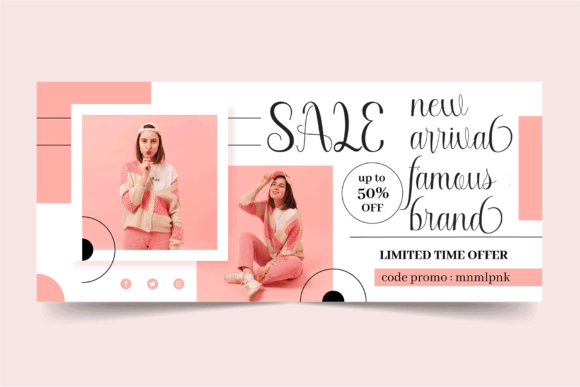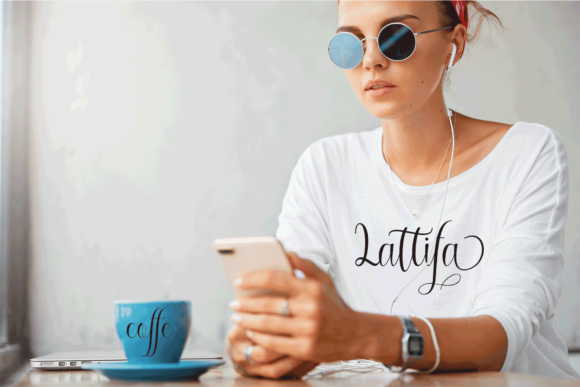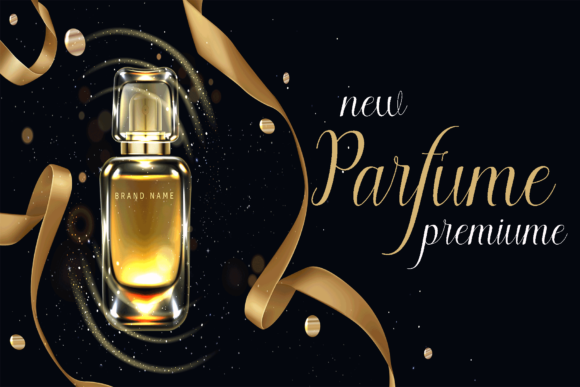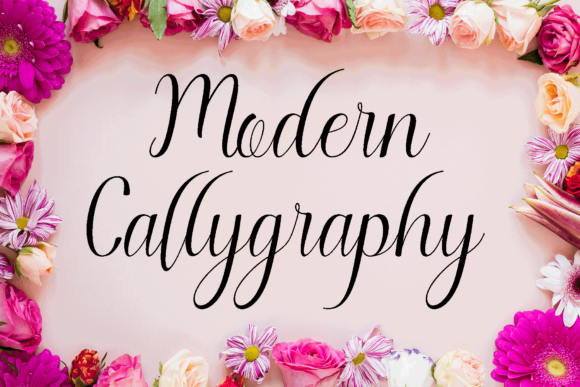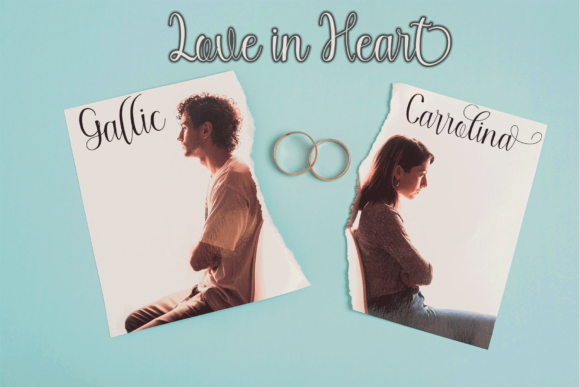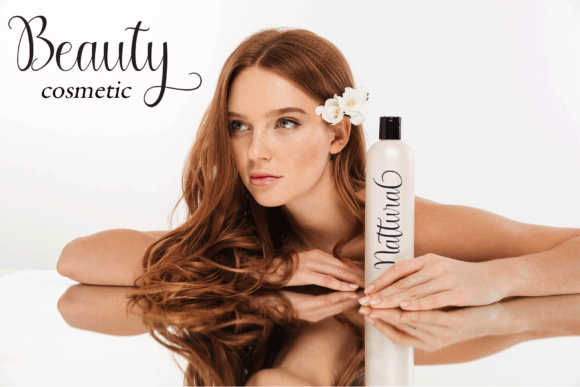
Adding Whimsy to Your Designs: The Magic of Butterflay Font
There’s something special about creating something from scratch – the spark of an idea, the rush of inspiration, and the satisfaction of bringing it to life. For designers, this moment is what makes it all worth it. But, let’s be honest, sometimes our ideas need a little push to take them to the next level. That’s where the perfect font comes in – one that can elevate your design and make it truly unforgettable.
Enter the Butterflay Font, a delicate, elegant, and flowing handwritten font that’s sure to add a touch of whimsy to your designs. With its beautiful and well-balanced characters, this font is a valuable addition to any designer’s toolkit, capable of matching a wide range of styles and ideas.
Butterfly Font Key Features
- Font Family: Butterfly Font is a unique, hand-drawn script font designed to evoke a sense of elegance and sophistication.
- Unique Characteristics: Butterfly Font features a distinctive, flowing design with intricate details and subtle flair, making it ideal for creating eye-catching headlines and titles.
Butterflay Font Review
Overall, I think Butterflay Font is a beautiful, whimsical font that can add a touch of magic to your design projects. ✨ Here are some things that work well:
- Unique, hand-drawn feel that’s perfect for creative and artistic projects.
- Lots of character and personality, making it a great choice for brands that want to stand out.
- Good legibility, even at smaller font sizes.
- Includes a wide range of languages and glyphs, making it a versatile choice for international projects.
- May not be the best choice for formal or professional projects, due to its whimsical nature.
- Can be quite dense, which may make it difficult to read at very large font sizes.
- Lack of italic or bold styles, which may limit its use in certain design situations.
Overall, I think Butterflay Font is a great choice for designers who want to add a touch of creativity and whimsy to their projects. It’s a great option for branding, marketing materials, and other creative projects where you want to make a statement. However, it may not be the best choice for more formal or professional projects.
Tips for Getting the Most Out of Butterflay Font
For the best results, use the Butterflay font in conjunction with a bold or italic style to create a striking contrast.
Use the Butterflay font for headings or titles to create a visually appealing design.
Experiment with different font sizes and colors to create a unique and eye-catching design.
The Butterflay font is ideal for use in branding, marketing materials, and digital design projects.
Use the Butterflay font for creating eye-catching headings and titles in social media posts and advertisements.
The Butterflay font can also be used for creating unique and creative designs in presentations and reports.